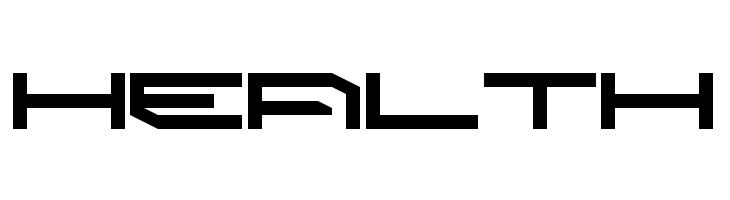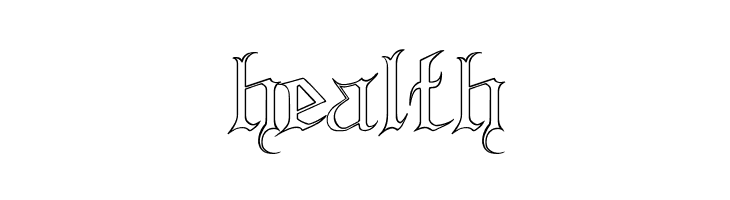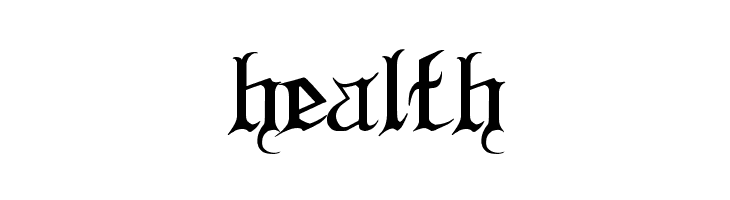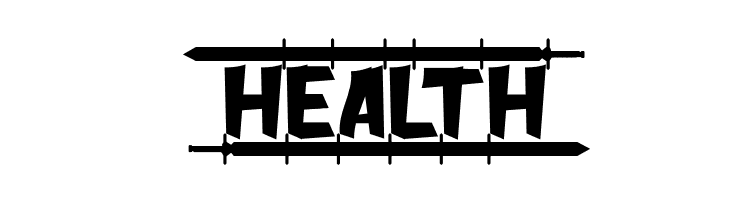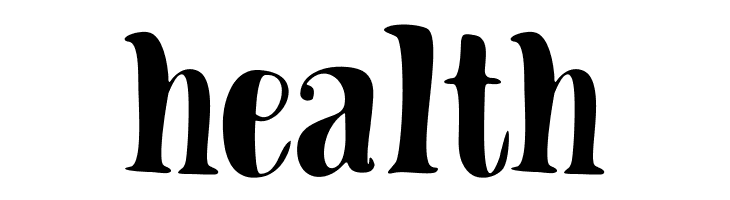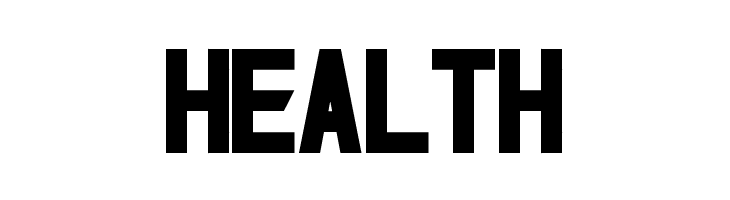
A bold, high-contrast serif font with sharp serifs and dramatic style.
A bold, futuristic font with sharp, angular lines and a strong geometric structure.
A futuristic, angular font with sharp edges and geometric shapes.
A bold, gothic outline font with intricate detailing and a medieval aesthetic.
A bold, gothic-style font with intricate details and sharp edges.
A dynamic, expressive font with flowing, cursive-like strokes and unique letterforms.
A bold, italic font with sharp, angular edges and a dynamic style.
A bold, angular font with sharp, edgy strokes and a dynamic presence.
A modern, condensed italic font with a sleek, geometric design.